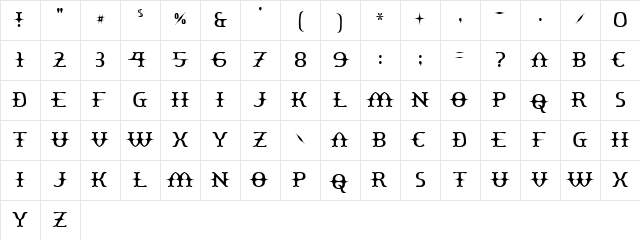
Yawnovision Regular Free Font
Yawnovision Regular
Design Context for Yawnovision
Yawnovision is a composed and adaptable typeface that performs quietly and consistently across a wide range of design contexts.
Pro Tip: Use Yawnovision in both headline and body roles to test its range before committing to a single application.